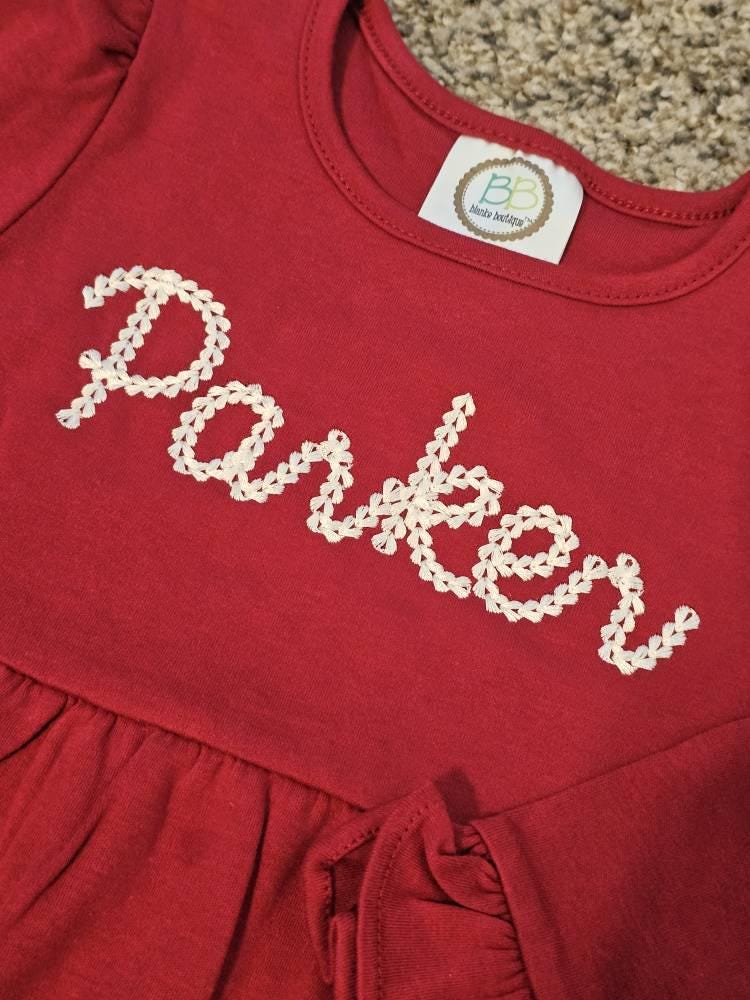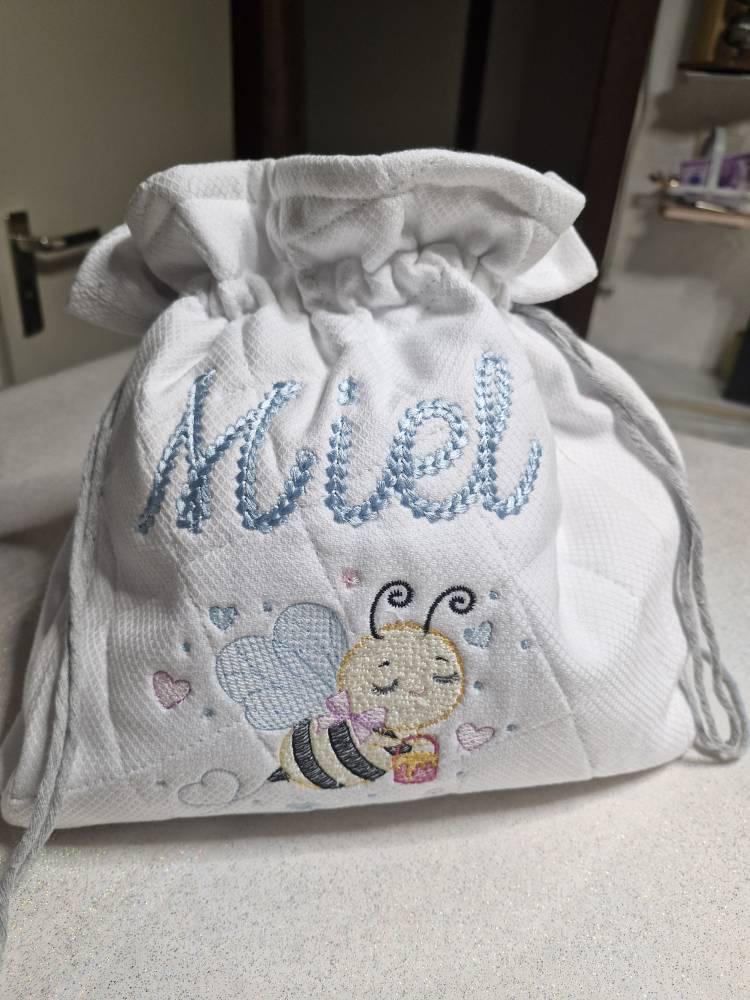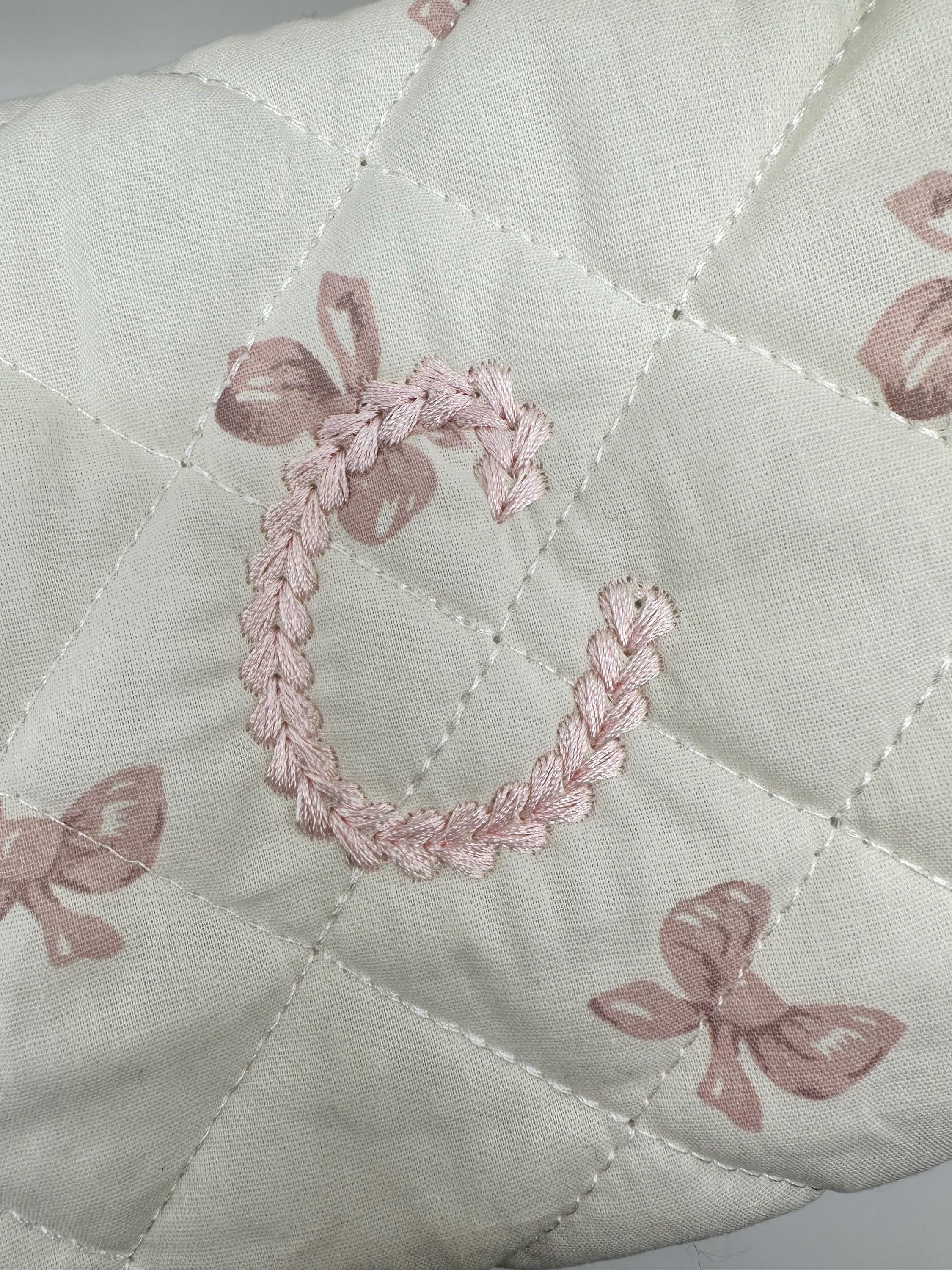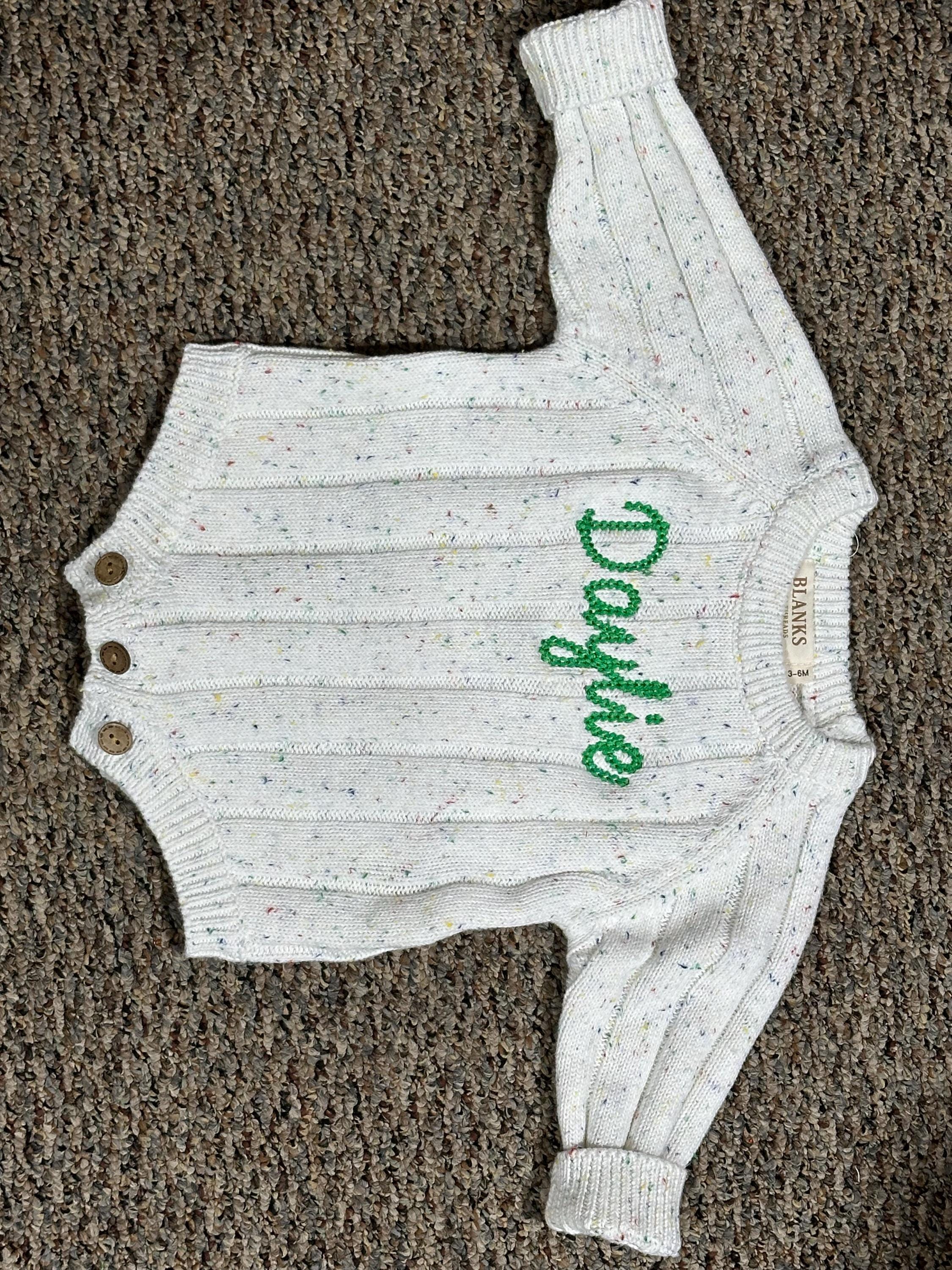
Extra Bold Chain Stitch Handwritten Font Cookie
Give garments a cozy, cookie-inspired handwritten monogram charm.
Extra Bold Chain Stitch Handwritten Font Cookie is an extra-bold chain alphabet created for a knitted, handwritten effect. This chain stitch font includes uppercase, lowercase, numbers and punctuation and is perfect for bold monograms, extra bold chain font projects and chain stitch alphabet designs. Use this handwritten chain font to create knit-effect monogram accents on sweaters, towels and bags. Files come in common machine formats (PES, DST, EXP, VIP, HUS, XXX, JEF, VP3) and stitch out as a single-color design with a clean chain texture and 4627 stitches for the 4" size.
- Design contents: uppercase, lowercase, numbers, punctuation
The chain stitch effect gives a knitted look that sits well on knit fabrics; because this is a single-color, extra-bold chain font it creates a chunky, textured monogram that holds its shape on sweaters and thicker knits.